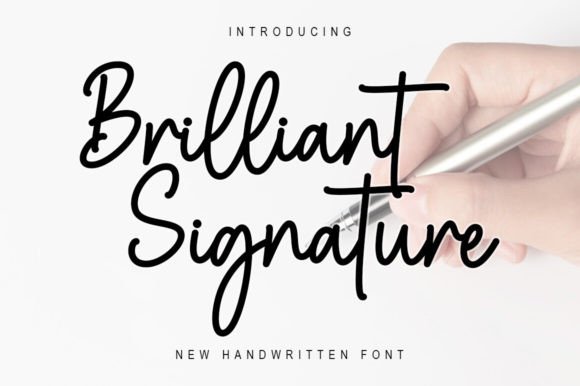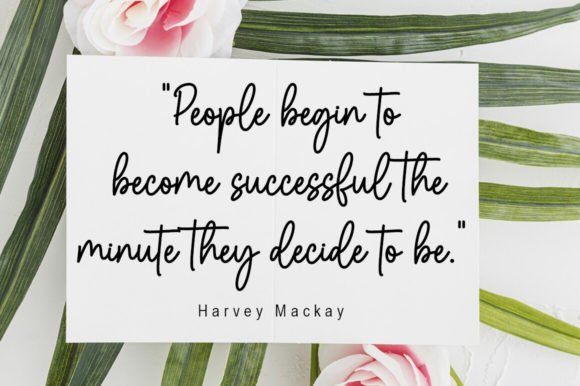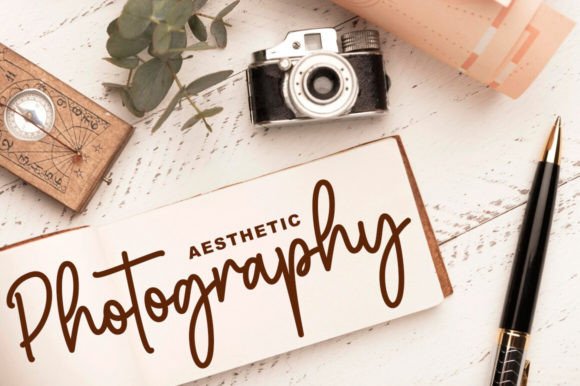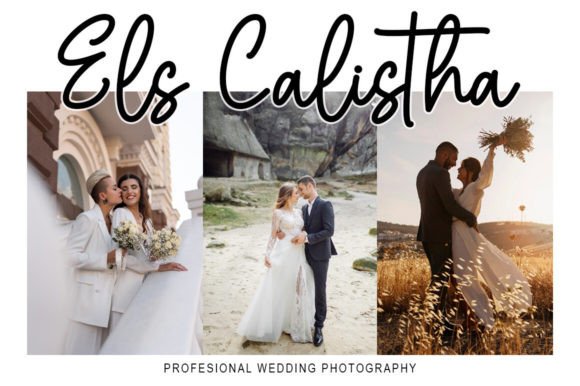
Brilliant Signature Font: Cute Handwritten Script for Wedding Designs
About the Brilliant Signature Font
Discover the charm of Brilliant Signature Font. This font is a perfect blend of modern aesthetics and classic appeal. Brilliant Signature is a sweet and friendly handwritten font. Cute and fun, it is ideal for writing wedding invitations, cards, or any other design that might need a fun touch!
Its playful, informal style makes it perfect for projects needing a friendly, approachable feel, such as branding for children’s products, wedding stationery, or social media graphics. However, its casual nature makes it unsuitable for large blocks of body text or applications requiring high readability, like websites or user interfaces.
Brilliant Signature pairs well with clean sans-serif fonts like Open Sans for a balanced contrast, or a more geometric sans-serif for a modern feel. Consider pairing it with a delicate script font for layered designs needing a touch of elegance, but avoid pairing with overly bold or heavy fonts which would overpower its delicate character.
The font’s core personality is undeniably cheerful and approachable, conveying a sense of warmth and friendliness. It’s best suited for brands aiming for a lighthearted and inviting image.
Brilliant Signature Font Usage Examples
Brilliant Signature Font Example